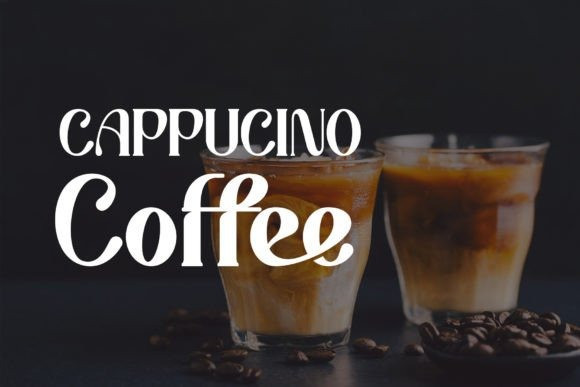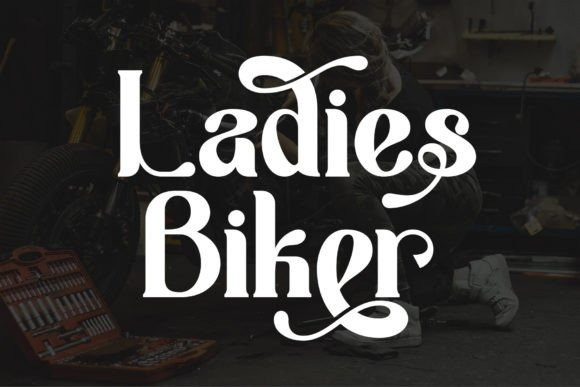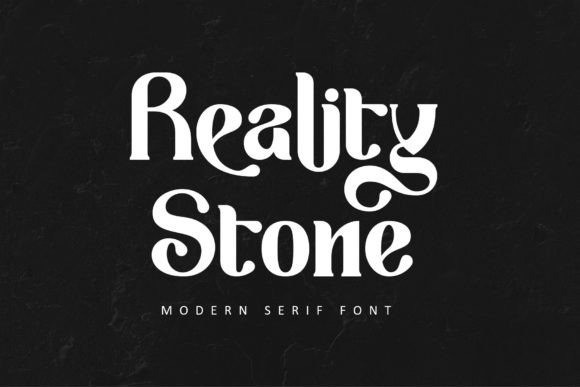
Reality Stone Font
Reality Stone Font, a bold and impactful serif font that commands attention and makes a powerful statement. With its strong and confident letterforms, this font is perfect for adding a touch of authority and professionalism to your designs. Whether you’re working on editorial layouts, branding materials, or even YouTube thumbnails, Reality Stone is the ideal choice to captivate your audience and leave a lasting impression. Stand out from the crowd and elevate your designs with the striking elegance of Reality Stone, the font that combines strength and sophistication in perfect harmony.